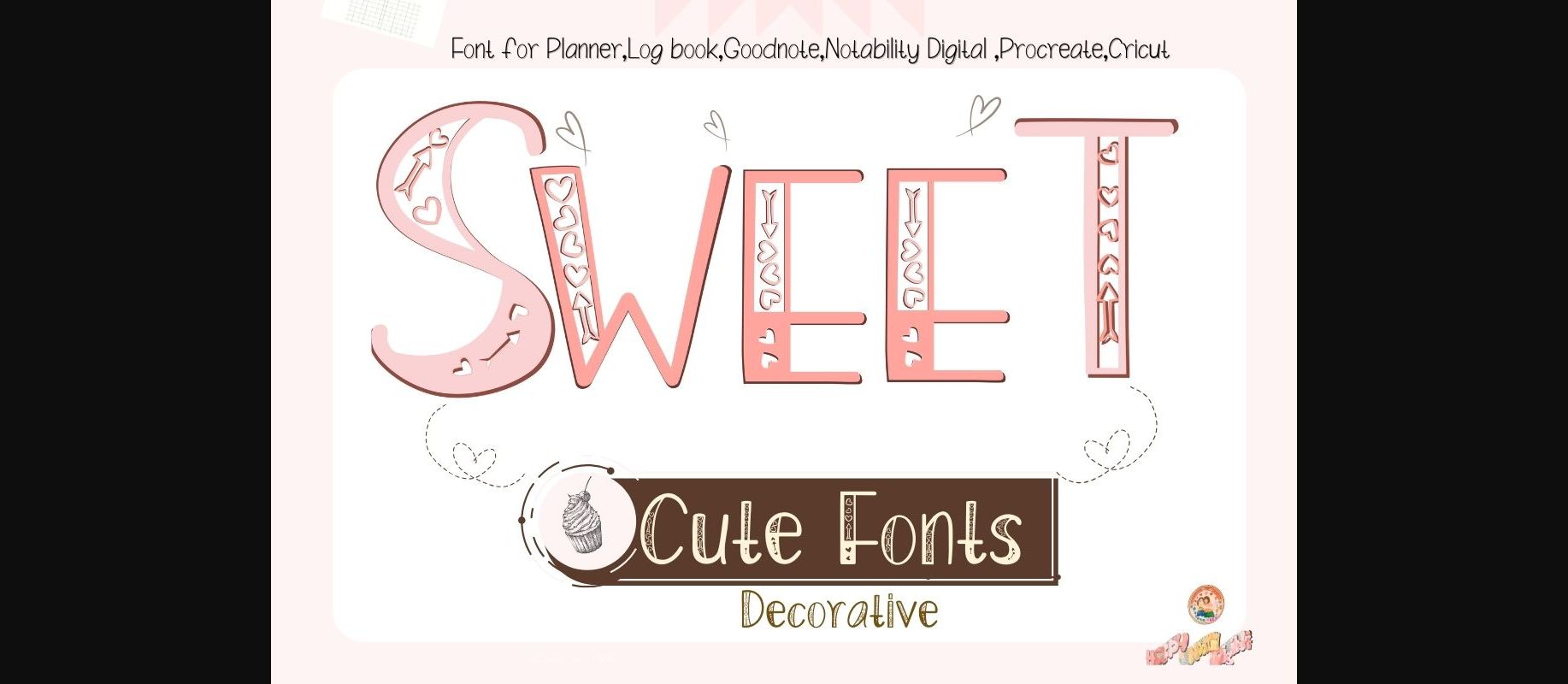
About Sweet Heart Font
Sweet Heart is a Cute Cupid handwritten Decorative font.
This font is perfect for Valentine’s Day Festival, couples, wedding day, quotes, branding, ornaments, shirts, mugs, headings, blogs, logos, invitations, and more!